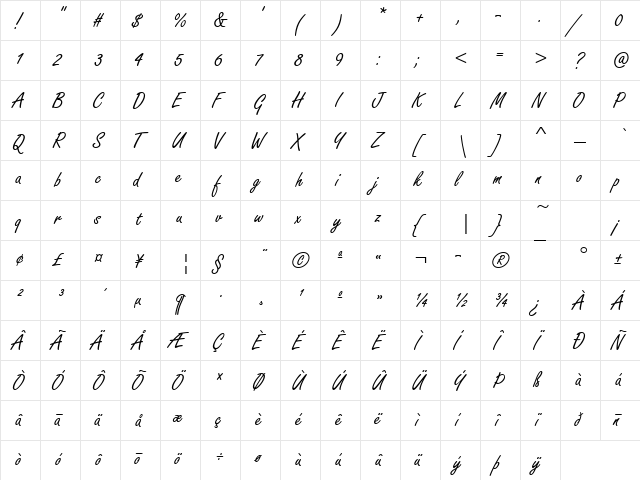
FreestyleScrD Regular
Design Context for FreestyleScrD Typeface
FreestyleScrD is a composed and adaptable typeface that performs quietly and consistently across a wide range of design contexts.